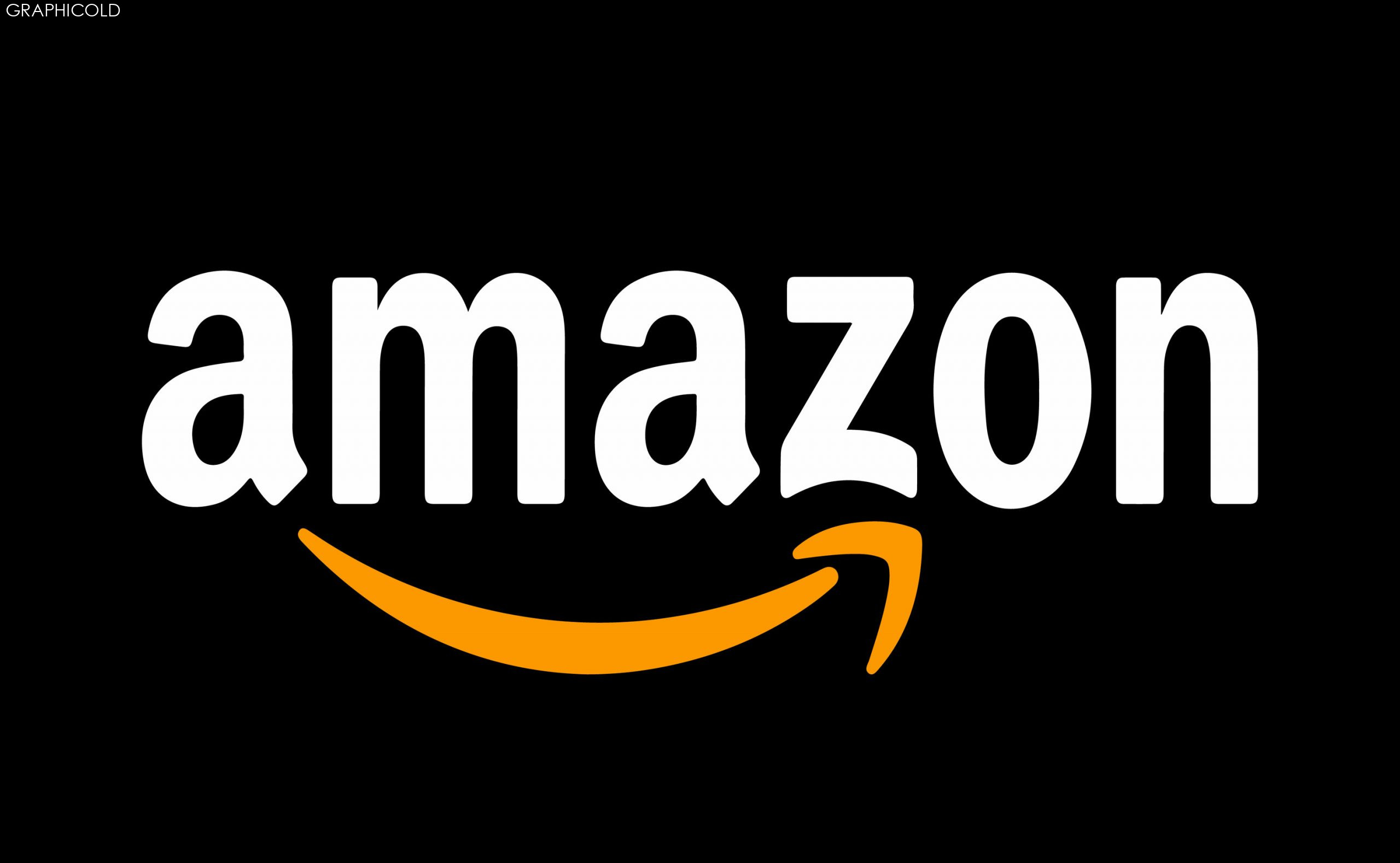
The Evolution Of Amazon’s Typeface: A Journey Through Typography
Title: 10 Captivating amazon fonts That Will Ignite Your Design Creativity
Introduction:
Fonts are the unsung heroes of design, capable of transforming a simple text into a visually stunning masterpiece. When it comes to finding the perfect font for your project, Amazon offers an impressive array of options that cater to every style and aesthetic. From elegant scripts to bold sans-serifs, let’s explore 10 captivating Amazon fonts that are sure to ignite your design creativity.
1. Playful Vibes: Illustrations
With the rise of whimsical and playful designs, the Illustrations font stands out as a vibrant and versatile choice. This charming handwritten font brings a touch of authenticity to your designs, perfect for invitations, greeting cards, or any project that demands a lighthearted feel. With its lively strokes and varied character sizes, Illustrations adds a delightful flair to your typography.
2. Elegant Sophistication: Calligraphy Script
For those seeking a touch of elegance and sophistication, the Calligraphy Script font is an ideal choice. Inspired by classic calligraphic styles, this font exudes grace and refinement. Whether you’re designing wedding invitations, brand logos, or elegant packaging, Calligraphy Script adds a timeless appeal that instantly elevates your design to new heights.
3. Modern Simplicity: Sans Serif
When it comes to minimalistic design, the Sans Serif font is a staple. Clean, sleek, and highly legible, this font is perfect for contemporary websites, blogs, or print materials. Its straightforward and unfussy style effortlessly communicates a sense of modernity, making it an excellent choice for projects that require a bold and confident typographic statement.
4. Rustic Charm: Handmade Vintage
If you’re seeking a font that evokes nostalgia and rustic charm, look no further than the Handmade Vintage font. With its intentionally worn and imperfect design, this font adds a touch of authenticity to any project. Ideal for vintage-themed designs, handmade crafts, or retro branding, Handmade Vintage brings a warm and inviting ambiance to your typography.
5. Versatile Classic: Serif
The Serif font is a timeless classic that has stood the test of time. Characterized by its small strokes (or serifs) at the end of letterforms, this font conveys a sense of tradition, making it ideal for formal occasions, editorial designs, or professional documents. Its versatility ensures that Serif can adapt to a wide range of design styles, providing a touch of elegance wherever it’s used.
6. Bold and Impactful: Display
When you need to make a statement, the Display font commands attention with its bold and impactful presence. Designed for headlines, logos, or any typography that needs to stand out, this font boasts high contrast and unique letterforms. Its eye-catching appeal ensures your design won’t go unnoticed, making Display an excellent choice for projects that demand a strong visual impact.
7. Quirky Eccentricity: Handwriting
For designs that require a dash of quirkiness and personality, the Handwriting font offers a hand-drawn charm that connects with your audience. With its irregular letterforms and uneven strokes, this font exudes a sense of authenticity and creativity. Perfect for invitations, posters, or any design project that demands an eccentric touch, Handwriting adds a unique and individualistic flair to your typography.
8. Futuristic Edge: Techno
If you’re working on a project that demands a futuristic and cutting-edge aesthetic, the Techno font is your go-to choice. With its geometric shapes, sharp edges, and sleek lines, this font captures the essence of modern technology. Ideal for sci-fi book covers, futuristic logos, or technology-themed designs, Techno adds a sleek and sophisticated touch to your typography.
9. Whimsical Delight: Cursive
The Cursive font offers a whimsical delight that enchants readers with its flowing and graceful letterforms. Perfect for children’s books, fairy tale designs, or anything that requires a touch of magic, this font creates a sense of wonder and enchantment. Its elegant and fluid strokes bring your typography to life, captivating audiences of all ages.
10. Artistic Expressions: Brush
For designs that require a touch of artistic flair, the Brush font captures the essence of hand-painted lettering. With its textured strokes and irregular shapes, this font adds a dynamic and expressive quality to your typography. Perfect for posters, album covers, or any project that demands a creative edge, Brush allows you to infuse your designs with artistic expressions.
Conclusion:
Choosing the right font is a pivotal step in creating visually compelling designs. With these 10 captivating Amazon fonts, you now have a palette of possibilities to bring your ideas to life. Whether you’re aiming for elegance, simplicity, whimsy, or boldness, there’s an Amazon font that perfectly matches your creative vision. So, go ahead, explore and experiment with these remarkable fonts, and let your typography shine with brilliance!